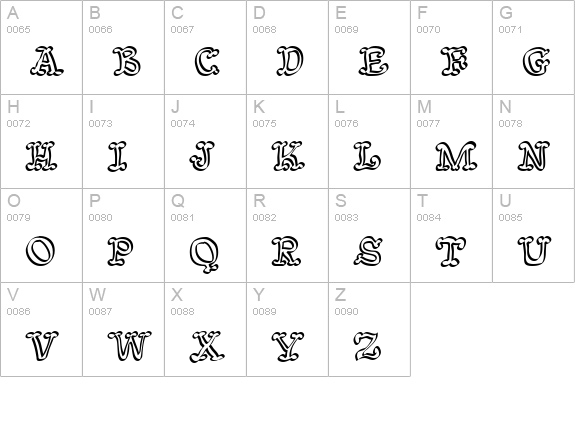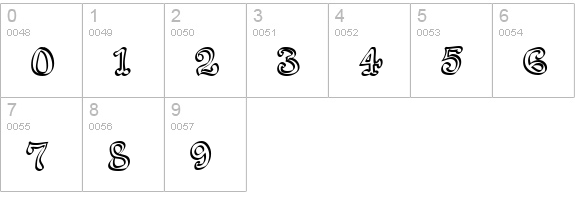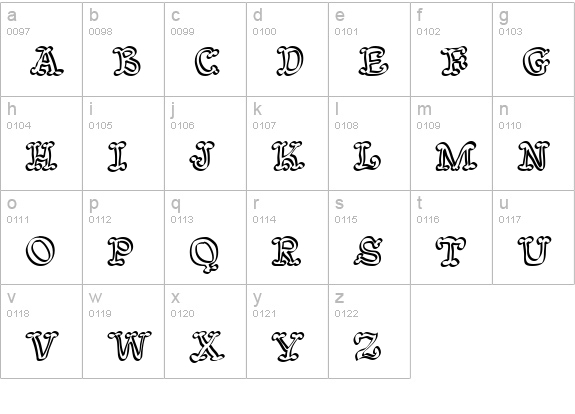
AccruedInterest Font Details
AccruedInterest font is a beautifully crafted typeface that exudes elegance and sophistication. With its sleek lines and modern design, this font is perfect for creating stunning typography for a variety of projects. Whether you're designing a logo, creating invitations, or crafting branding materials, AccruedInterest font will surely make your text stand out. Best of all, AccruedInterest font is available for free download at FontsMarket.com. This means that you can easily access this gorgeous font without having to break the bank. So why wait? Download AccruedInterest font today and elevate your designs to the next level with its timeless appeal and versatility.